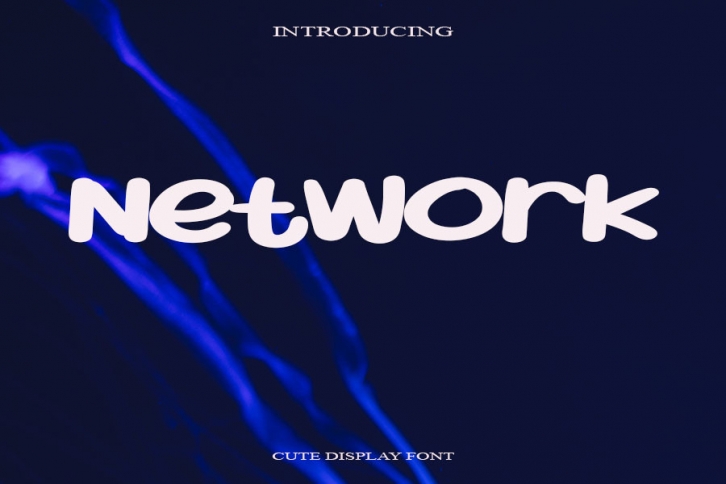
Network is a lovely and timeless display font. It is the best choice for creating eye-catching logos, branding designs, and quotes. Every letter has a unique and beautiful touch, which will make your design come alive!